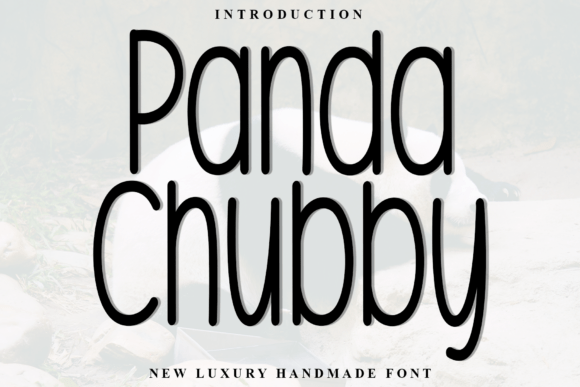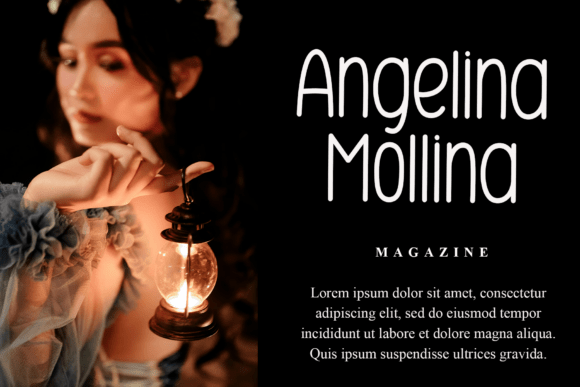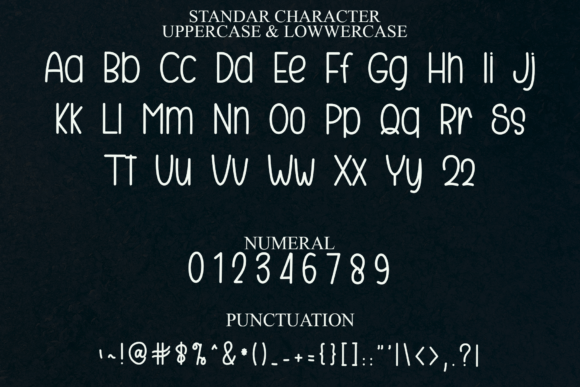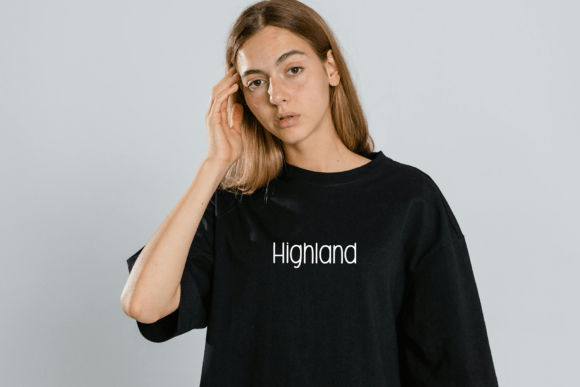
Panda Chubby Font
About the Panda Chubby Font
The Panda Chubby Font offers a perfect balance of form and function for your design needs. Panda Chubby is a festive and merry typeface that captures the spirit of the holiday season. With its decorative elements and whimsical flair, it adds a touch of enchantment to your designs. Perfect for greeting cards, gift tags, and holiday-themed projects, this font brings a cheerful and nostalgic ambiance to your words. Let your typography shine with the magic of Beautiful Font!
Panda Chubby’s playful design excels in short, impactful applications such as headlines, logos for children’s products, or festive packaging. Its decorative nature makes it unsuitable for body text or UI elements where readability is paramount. Avoid using it for lengthy paragraphs or website copy.
This font’s cheerful personality pairs well with clean sans-serif fonts like Open Sans for a balanced contrast, or a more geometric sans-serif like Montserrat for a modern feel. For a touch of elegance, consider pairing it with a delicate script font, but keep the script usage minimal to avoid overwhelming the design.
Panda Chubby’s overall aesthetic is best described as whimsical and friendly. Brands targeting younger audiences or those with a playful, celebratory brand identity would find it particularly effective.
Panda Chubby Font Usage Examples
Panda Chubby Font Example